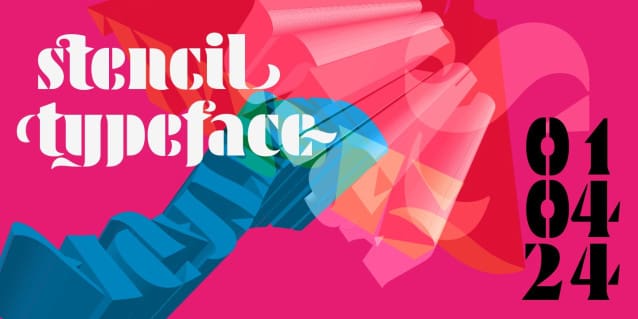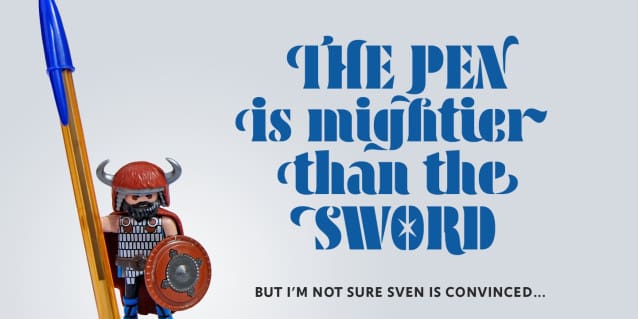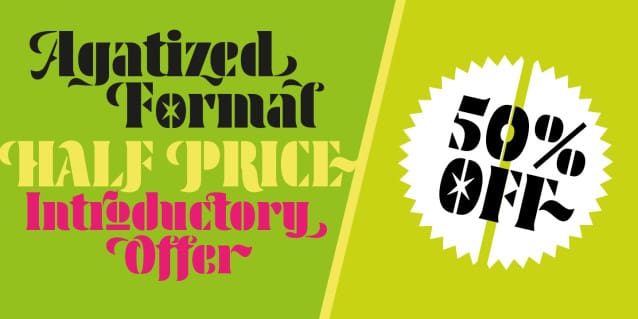
Agatized Formal Font
Agatized Formal Font is a chunky stencil typeface with slightly condensed letterforms and tight spacing. Designed primarily for display use, it’s ideal for posters, logos, advertising, book cover designs or small chunks of text such as pull-out quotes.
It exudes authority without taking itself seriously, like a plump jolly uncle in charge of a brass band. Agatized Formal is a big, bold typeface with a charismatic presence that commands attention – in a friendly way, of course.
But what really makes this typeface come alive is its arsenal of alternative characters and ligatures. There is a saying: Use sparingly. Whoa! Not here, no, no, no. Make your Glyphs palette earn its money. Flex your OpenType muscles: get stylized, contextualized, indulge in some ligaddiction. This typeface is a peacock that likes to put on a show, spread its plumage and strut around in all its blazing glory.
Agatized, according to Wiktionary, means: A living thing converted into the form of agate; fossilized. I felt the name suited the solid, almost rock-like letterforms, but most of all I just wanted a typeface name that began with the letter A.
Although Agatized Formal is a single-weight typeface it has a sibling, Agatized Informal, an older, more casual brother, rougher round the edges with craggy good looks and an altogether more jaunty style.